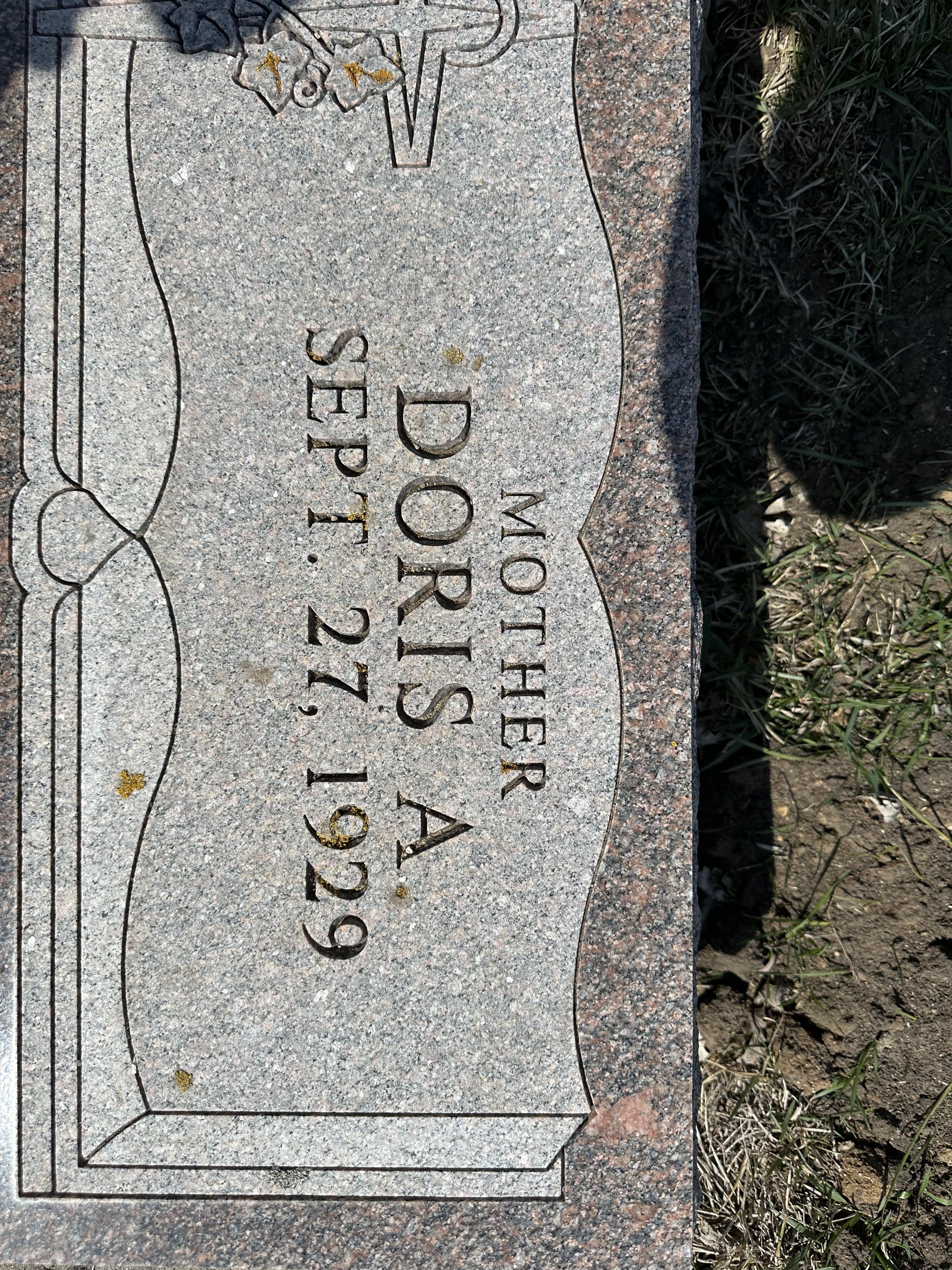
Hi Jill, this is a memorial industry version of Times New Roman. It was modified quite a bit from Times, especially noticeable in the numbers. DesignMart sells a version of the font.